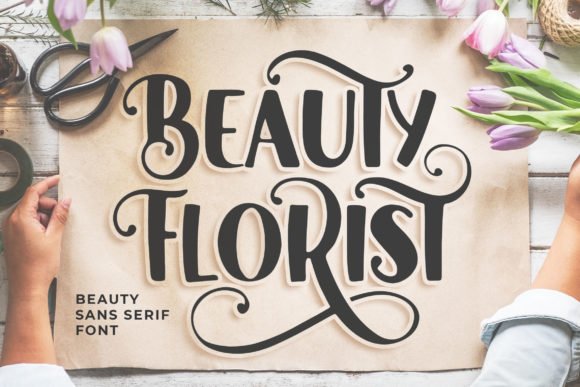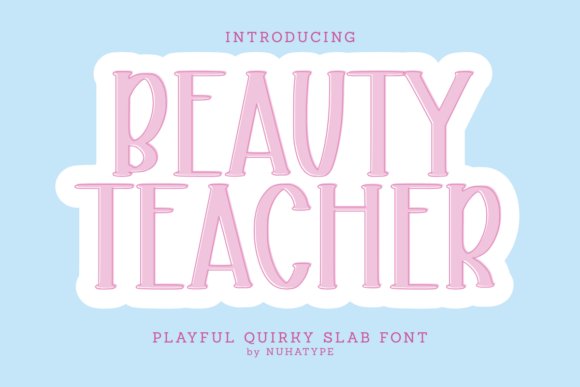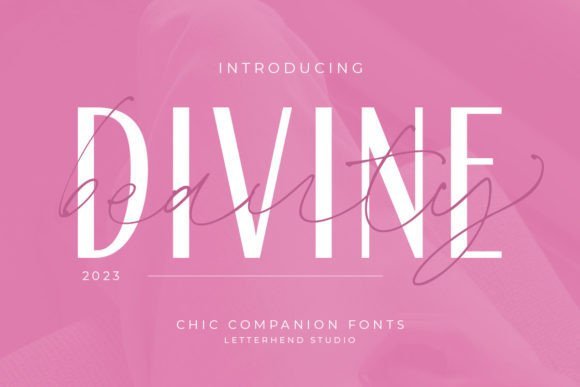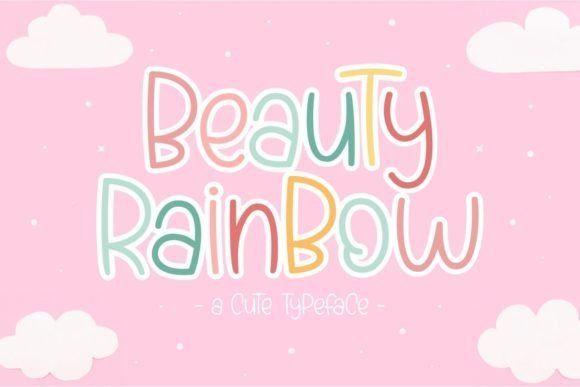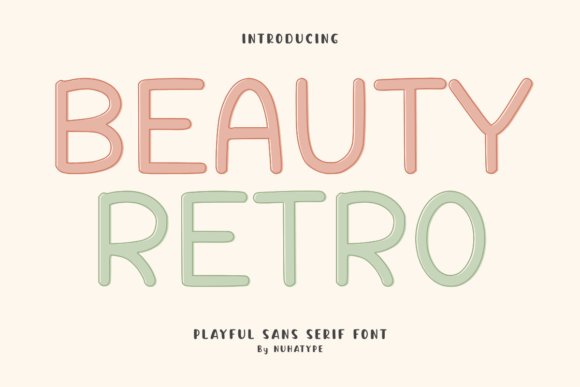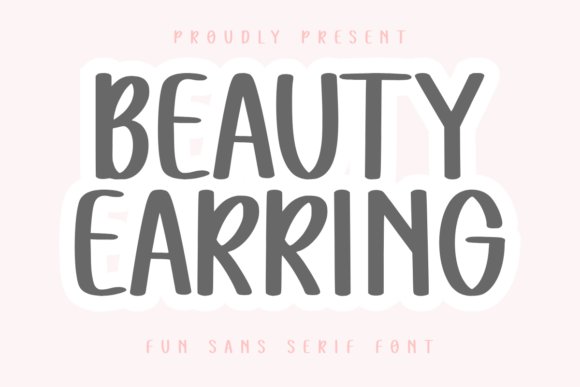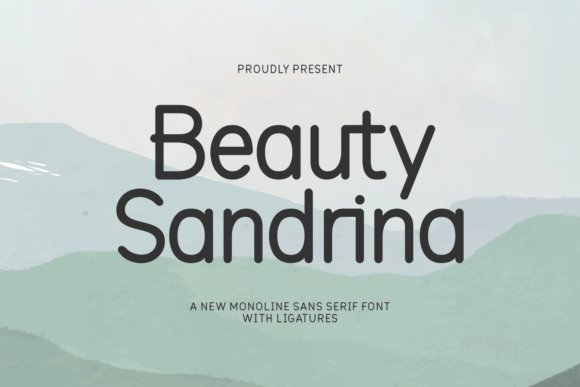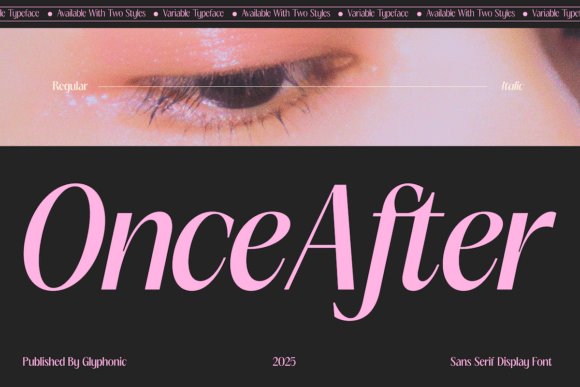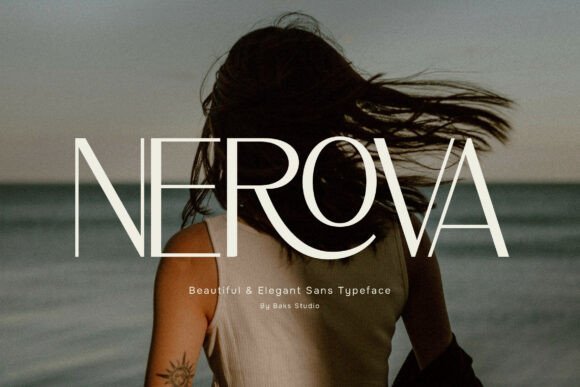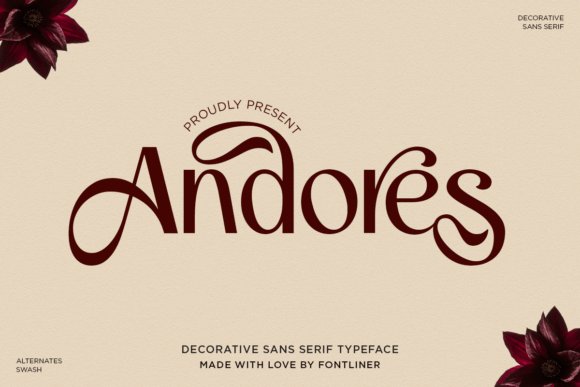
27 Best Beauty Brand Sans Serif Fonts for Stunning Visual Identities in 2026
Choosing the right typography is a critical step in building a luxury aesthetic for your cosmetics company. In this guide, we explore the 27 best beauty brand sans serif fonts that are trending for 2026 to help your designs stand out in a competitive market.
These clean and modern typefaces provide the perfect balance between high-end elegance and clinical precision. Whether you are designing a skincare label or a fashion magazine cover, the right font communicates trust and sophistication. Using modern sans-serifs allows your brand to remain versatile across digital and print media.
This selection focuses on readability and stylish curves that define modern cosmetic branding. By choosing the right weight and spacing, you can evoke a sense of minimalism and luxury that appeals to modern consumers.
1. Beauty Florist Font
Beauty Florist Font introduces a refreshing blend of joy and sophistication to the typography world. Its strokes are crafted with a delicate balance that manages to look both professional and approachable, making it a standout choice for contemporary identity projects.
When searching for the perfect beauty brand sans serif fonts, this typeface offers a unique geometric clarity that works wonders for skincare or floral boutiques. It thrives in environments where visual breathing room is essential, providing a clean yet expressive aesthetic that resonates with modern consumers.
The versatility of this font is its greatest strength, as it maintains its character across various digital and print mediums. Whether used for high-resolution web banners or physical packaging, the font ensures that the brand’s message is delivered with elegance and rhythmic flow.
My Recommendation: I personally love Beauty Florist for its cheerful disposition that doesn’t sacrifice professional polish. It is the ideal choice for small business owners who want their packaging to feel high-end yet welcoming. I would specifically recommend this for lifestyle brands or organic beauty products where a natural vibe is central to the identity.
2. Beauty Teacher Font
Beauty Teacher Font is a charming, handwritten sans serif that captures a soft and natural essence. Designed with a friendly touch, it brings an unmistakable handcrafted warmth to every design, steering away from the rigid structures of traditional digital typefaces.
This font is particularly well-suited for craft-focused ventures, making it a staple for creators using tools like Cricut or Silhouette. The smooth curves and simple strokes ensure that intricate cutting tasks are handled with ease, which is a significant plus for DIY enthusiasts.
Beyond crafting, its playful graphic nature makes it perfect for educational materials, kids’ worksheets, and bullet journals. It manages to be legible while retaining a quirky, human personality that makes instructional or organizational content feel much more engaging.
My Recommendation: Beauty Teacher is my go-to when a project needs to feel relatable and human. It works beautifully for printable planners or classroom resources because it’s clear enough for children to read but stylish enough for adults to enjoy. If you’re building a community-driven brand, this font provides the warmth you need.
3. Divine Beauty Font
Divine Beauty Font is a masterclass in modern simplicity, featuring clean lines and exceptionally balanced proportions. This typeface is designed for those who appreciate the intersection of minimalism and high fashion, offering a look that is both timeless and trendy.
The font excels in layout designs where it can be paired with sophisticated serifs, creating a visual harmony that feels curated and upscale. Its understated elegance ensures that it doesn’t overpower other design elements, allowing the overall composition to breathe and shine.
Ideal for luxury branding, this sans serif provides a sleek foundation for logos, headlines, and premium stationery. The deliberate lack of unnecessary flourishes emphasizes a less is more philosophy, which is highly sought after in contemporary skincare and apparel industries.
My Recommendation: Divine Beauty is the definition of quiet luxury in the font world. I recommend using it for editorial layouts or high-end product catalogs where you want the typography to feel effortless. It is a fantastic choice for designers looking to create a divine first impression without trying too hard.
4. Beauty Rainbow Font
Beauty Rainbow offers a delightful departure from stiff typography, introducing a sense of whimsy and joy into every character. This typeface is specifically crafted for designers who want to inject a playful energy into their layouts without losing the clean structure of a sans serif. Its cheerful curves and lighthearted weight make it a standout choice for modern aesthetics.
When searching for beauty brand sans serif fonts that break the mold, this option provides a unique balance of professional legibility and youthful exuberance. The font’s geometric foundations ensure it remains readable on digital screens and physical labels alike. It excels in environments where the brand voice needs to feel approachable, friendly, and inherently positive.
The versatility of these characters allows for creative experimentation across various media types. Whether you are building a social media campaign or designing custom packaging, the smooth outlines ensure high-quality production results. It is an excellent tool for creators looking to foster an emotional connection with their audience through vibrant and uplifting visual communication.
Download Beauty Rainbow Font
My Recommendation: I absolutely love this font for indie makeup lines or colorful skincare packaging targeted at Gen Z. Its bubbly personality makes products feel instantly more accessible and fun. Use it for headline text on your website or for cheeky slogans on your shipping boxes to create a memorable unboxing experience.
5. Beauty Retro Font
Beauty Retro Font
Beauty Retro captures the essence of handcrafted charm with its soft, organic strokes and friendly personality. This handwriting-inspired typeface brings a human touch to digital designs, making every word feel personal and carefully considered. Its natural flow is perfect for brands that value authenticity and a handcrafted aesthetic in their visual identity.
The technical execution of this font is tailored for ease of use, particularly for those utilizing cutting machines like Cricut or Silhouette. The smooth paths and lack of jagged edges ensure clean cuts for stickers, decals, and custom vinyl work. This makes it a go-to resource for boutique owners and DIY enthusiasts who need high-performance typography for their goods.
Beyond physical crafts, it performs exceptionally well in digital planners, educational worksheets, and lifestyle blogs. The legible yet informal structure allows it to function as both a secondary header and a stylized body text. It radiates a warm, vintage-inspired comfort that resonates deeply with audiences looking for a more grounded and relatable brand presence.
Download Beauty Retro Font
My Recommendation: This is my top pick for organic, small-batch beauty businesses or artisanal soap makers. The handwritten feel adds a level of trust and intimacy that standard fonts just cannot match. It is perfect for thank you cards or ingredient lists where you want the customer to feel the human hands behind the brand.
6. Beauty Earring Font
Beauty Earring Font
Beauty Earring is a sophisticated display typeface that masterfully blends modern minimalism with a rounded, approachable character. The slightly condensed letterforms offer a space-efficient solution for tight layouts without sacrificing visual impact or style. Its clean architecture and bold presence make it an ideal choice for high-contrast designs that require immediate attention from consumers.
The aesthetic of this font is defined by smooth, flowing curves that lend an air of contemporary elegance to any project. It avoids the harshness of traditional geometric fonts, opting instead for a softer, more inviting profile. This unique balance makes it highly effective for fashion-forward labeling, trendy apparel designs, and upscale product packaging where clarity is paramount.
Designed with versatility in mind, this typeface works beautifully across different substrates and printing methods. From sublimation on tumblers to embossed logos on luxury boxes, the letterforms maintain their integrity and distinct charm. It provides a polished, professional look that elevates the overall quality of creative marketing materials and high-end brand collateral.
Download Beauty Earring Font
My Recommendation: For minimalist jewelry brands or high-end salon signage, this font is a total winner. It has a sleek, boutique feel that communicates luxury while remaining very legible and friendly. I would use this for main brand headings or logo marks where you want to show off a polished, modern, and curated vibe.
7. Beauty Sandrina Font
Beauty Sandrina Font
Beauty Sandrina is a masterful monoline typeface that perfectly balances contemporary minimalism with a chic, feminine aesthetic. Its clean lines and uniform stroke weight make it a standout choice for anyone seeking high-quality beauty brand sans serif fonts. This typeface offers a refreshing alternative to standard geometric fonts by introducing a softer, more fluid personality that feels approachable yet professional.
The monoline architecture ensures that the font maintains its integrity across various platforms, from high-resolution print ads to mobile application interfaces. Its airy spacing and delicate curves create a visual rhythm that is both soothing and sophisticated. This makes it an ideal tool for designers who want to convey purity, clarity, and modern luxury without the harshness of industrial sans-serifs.
With its emphasis on readability and sleek structure, the font easily handles long-form marketing copy while remaining distinct enough for headline use. By incorporating these beauty brand sans serif fonts into your visual identity, you ensure a cohesive and polished look that resonates with a style-conscious audience. It is a versatile asset that simplifies the design process for cosmetic and lifestyle projects.
Download Beauty Sandrina Font
My Recommendation: I highly recommend Beauty Sandrina for minimalist skincare packaging or social media layouts where clarity is the priority. The consistent weight looks incredible when overlaid on soft, pastel-toned photography. It is the perfect choice for a brand that wants to appear transparent, modern, and effortlessly elegant to its customers.
8. Once After Font
Once After Font
Once After represents a bold evolution in typography, offering a variable sans-serif experience that blends editorial grace with digital precision. Characterized by high-contrast curves and large, expressive apertures, this typeface challenges the traditional boundaries of minimalist design. It captures the sophisticated spirit of a high-end serif while maintaining the clean, efficient silhouette of a modern sans-serif.
The dramatic flair of its sweeping bowl structures provides a glamorous presence that is rarely found in standard typefaces. Because it is a variable font, designers have the freedom to fine-tune the weight transitions, allowing for a customized performance that adapts perfectly to different media environments. This adaptability makes it an essential tool for creating unique, high-fashion digital interfaces that require a bespoke touch.
Furthermore, the PUA-encoded nature of Once After grants easy access to a wealth of glyphs and swashes. This feature empowers creators to add unique flourishes to their titles and logos, ensuring that every project has a signature look. It is a typeface designed for those who want their visual voice to be both exclusive and highly editorial in its execution.
Download Once After Font
My Recommendation: Once After is a dream come true for fragrance brands and fashion magazines that need a ‘high-couture’ vibe. I love using its variable weight feature to create dynamic, moving headlines on web projects. Use this if you want your brand to feel like a premium, limited-edition experience that values artistic expression.
9. Nerova Font
Nerova Font
Nerova is a meticulously crafted typeface that serves as a bridge between modern minimalism and high-end exclusivity. Every letterform is built with balanced proportions and smooth, refined curves that evoke a sense of quiet luxury. It is specifically designed for professionals who prioritize clarity and sophisticated aesthetics in their branding and editorial work.
The strength of this font lies in its distinctive personality, which manages to be both striking and unobtrusive. The refined spacing between characters allows for maximum legibility, even when used for complex product descriptions or small-print packaging. Its construction reflects a deep understanding of geometric harmony, making it a reliable choice for a wide variety of professional design applications.
Whether applied to marketing materials or luxury product identities, Nerova delivers a polished finish that instantly elevates the perceived value of a brand. It offers a clean visual identity that avoids the clutter of over-designed typefaces, focusing instead on the purity of form. This makes it an indispensable asset for designers working within the fashion and high-end lifestyle industries.
Download Nerova Font
My Recommendation: In my professional experience, Nerova is the ultimate choice for luxury skincare serums or professional consulting logos. Its proportions feel very ‘established’ and trustworthy, which is great for building brand authority. I suggest using it with generous letter-spacing to truly let the elegant curves breathe and speak for themselves.
10. Andores Sans Serif Font
Andores Sans Serif Font
Andores brings a unique blend of decorative flair and structural stability to the digital canvas. Its flowing swashes and graceful curves offer a level of ornamental sophistication that few typefaces manage without feeling cluttered. This makes it an ideal choice for beauty brand sans serif fonts where a touch of romance and visual luxury is required to capture consumer attention.
The typeface’s refined proportions are meticulously crafted to convey warmth and high-end appeal through every character. Its smooth rhythm allows for excellent readability even with its stylized alternates. Designers can easily leverage its PUA encoding to access flourishes that elevate simple headlines into bespoke branding elements for skincare or fashion labels.
Beyond its aesthetic charm, Andores is highly functional for multi-platform use. From Instagram story overlays to physical product packaging, its modern simplicity ensures it doesn’t lose impact. The balance between its delicate line work and bold presence provides a versatile toolkit for creating unforgettable visual storytelling in the boutique retail sector.
Download Andores Sans Serif Font
My Recommendation: I would personally choose Andores for a high-end perfume or botanical skincare line. The way the swashes interact gives a custom, hand-crafted feel that usually requires hours of manual work. It is the perfect shortcut to achieving a romantic, premium vibe for brands that rely heavily on visual storytelling.
11. Ladyrose Sans Serif Font
Ladyrose Sans Serif Font
Ladyrose stands out as a masterclass in contemporary minimalism, focusing on the power of understated elegance. This font prioritizes clean lines and subtle geometric curves to deliver a visual presence that feels both approachable and exclusive. It avoids unnecessary complexity, allowing the negative space around the letterforms to breathe, which is essential for high-end editorial and digital interfaces.
The balanced proportions of this typeface ensure a polished look across a wide variety of weights and sizes. Its elegant simplicity makes it a favorite for designers who need a dependable yet stylish typographic anchor. Whether you are crafting a logo for a luxury spa or a digital magazine layout, its soft aesthetic provides a consistent sense of class.
Adapting seamlessly to different creative directions, Ladyrose maintains its poise in both print and web environments. The typeface creates a sophisticated atmosphere without ever overshadowing the surrounding imagery. This makes it a perfect choice for modern brands that want to communicate clarity and luxury through a refined, understated typographic voice.
Download Ladyrose Sans Serif Font
My Recommendation: I highly recommend Ladyrose for anyone building a minimalist lifestyle blog or a luxury fashion portfolio. Its airy feel makes long-form text look incredibly chic and professional. It is my go-to when I need a font that feels ‘expensive’ without being loud or distracting to the reader.
12. Coroy Sans Serif Font
Coroy Sans Serif Font
Coroy is a sans serif typeface that draws heavy inspiration from the world of high-impact minimalist logos. Its structure is built on a foundation of clarity and modern efficiency, making it a powerful tool for visual communication. The font is designed to be punchy and direct, ensuring that brand messages are delivered with authority and professional polish.
This font package includes a full suite of standard glyphs and ligatures that enhance its versatility across different media. It works exceptionally well in professional software suites like Adobe Illustrator and Photoshop, allowing for seamless integration into complex design workflows. The international accent support ensures that global brands can maintain a consistent identity across different markets.
The simplicity of Coroy is its greatest strength, offering a clean canvas for advertising campaigns and invitation designs. It excels in environments where readability is paramount but a distinct personality is still desired. By combining a classic sans serif backbone with subtle modern tweaks, it manages to look fresh and timeless regardless of the application.
Download Coroy Sans Serif Font
My Recommendation: I’d suggest Coroy for corporate identity projects or tech-focused retail brands. The minimalist influence is very clear, giving any logo an instant boost of credibility and modern appeal. It is a true workhorse font that stays legible even on tiny product labels or mobile screens.
13. Laora Sans Serif Font
Laora Sans Serif Font
Laora Sans is a masterclass in minimalist design, drawing inspiration from high-end corporate identities that prioritize clarity and sophistication. Its clean lines and balanced proportions make it an exceptional choice for designers who need a versatile typeface that feels both modern and timeless. This font family adapts beautifully to various digital and physical contexts.
This font comes equipped with standard glyphs and unique ligatures that allow for creative flexibility in professional layouts. It functions seamlessly across various design suites like Adobe Illustrator and Photoshop, ensuring a smooth workflow for complex branding projects or simple invitation designs alike. The simple installation process makes it accessible for creators at any skill level.
When searching for the perfect beauty brand sans serif fonts, Laora stands out because of its ability to adapt to diverse aesthetic needs without losing its elegant edge. It is particularly effective for large-scale advertising and digital brochure layouts where readability is just as important as visual appeal. This typeface effectively communicates luxury and professional reliability.
Download Laora Sans Serif Font
My Recommendation: I would personally reach for Laora when designing minimalist skincare packaging or luxury salon menus. Its clean aesthetic gives off an expensive vibe while remaining perfectly legible. It is the definitive choice for any project that needs to look polished and high-end without being overly decorative.
14. Beauty Heart Beauty Brand Sans Serif Fonts
Beauty Heart Beauty Brand Sans Serif Fonts
Beauty Heart offers a refreshing departure from standard geometric typefaces by introducing a soft, handcrafted aesthetic. This font captures a friendly and natural essence, making it perfect for brands that want to appear approachable and authentic to their audience. Its gentle curves suggest a sense of artisanal care and attention to detail.
The smooth strokes are optimized for precision cutting machines like Cricut and Silhouette, making it a favorite for DIY creators and small business owners. It brings a playful energy to planners, stickers, and classroom materials, adding a personal touch that machine-perfect fonts often lack. This ease of use makes it a staple for home-based craft projects.
Beyond crafting, this typeface excels in social media graphics and greeting cards where a human connection is vital. Its warm personality helps bridge the gap between a business and its customers, fostering a sense of community. The design remains legible even at smaller sizes, making it versatile for various print and digital formats.
Download Beauty Heart Beauty Brand Sans Serif Fonts
My Recommendation: This is my favorite choice for lifestyle bloggers or small-batch organic soap makers who want a hand-picked, authentic feel. It is incredibly charming and works wonders for Instagram stories or personalized thank-you notes. If your project needs a touch of kindness and warmth, this is the font for you.
15. Beauty Garden Sans Serif Font
Beauty Garden Sans Serif Font
Beauty Garden is a sophisticated modern typeface characterized by its precise geometry and flowing curves. Every character has been crafted with meticulous attention to detail, ensuring that the alternative characters and ligatures integrate perfectly into high-end compositions. This font brings a unique sense of motion to static typography.
This font is specifically designed to elevate branding projects, providing a unique visual identity that feels both contemporary and organic. The beautiful curves of the letterforms offer a sense of fluidity that is often missing from more rigid sans serif alternatives. It creates a rhythm on the page that naturally guides the eye of the reader.
Whether used for premium packaging or eye-catching titles, this typeface adds a layer of refinement to any design. Its versatility allows it to move effortlessly between digital interfaces and physical print media, maintaining its striking presence. It is an excellent asset for designers looking to create a memorable brand presence with minimal effort.
Download Beauty Garden Sans Serif Font
My Recommendation: I recommend Beauty Garden for botanical-based beauty lines or luxury candle brands that need a mix of modernism and nature. The ligatures are particularly stunning, making it easy to create a custom-looking logo without much modification. It is a great pick for designers who want to balance sharpness with soft, organic flows.
16. Hungry Beauty Font
Hungry Beauty Font
Hungry Beauty is a remarkably fluid and attractive sans-serif that balances modern minimalism with a warm, inviting personality. It serves as a fantastic choice when browsing for beauty brand sans serif fonts because of its clean geometry and effortless legibility. Whether you are crafting a high-impact headline for a skincare line or building a cohesive identity for a digital wellness app, this typeface ensures your message remains the focal point without unnecessary clutter.
The font’s architecture is built on simplicity, making it versatile enough to transition from dense body copy to bold advertising banners. Its stylish proportions give it an eye-catching edge that resonates with contemporary audiences who value clarity and sophistication. In an industry where first impressions are everything, the balanced weights and refined curves provide a professional finish that elevates any marketing material.
Download Hungry Beauty Font
My Recommendation: I love Hungry Beauty for its sheer adaptability; it is one of those rare fonts that works just as well in a tiny footnote as it does on a massive billboard. I would recommend this for a startup looking for a reliable, all-in-one typeface that can grow with their visual identity. It feels approachable but polished, making it a safe yet stylish bet for almost any modern creative project.
17. Rise of Beauty Duo Font
Rise of Beauty Duo Font
The Rise of Beauty Duo is a masterclass in typographic synergy, pairing a sleek, contemporary sans serif with an expressive, hand-lettered script. This combination allows designers to create complex visual hierarchies that feel unified and intentional. It is particularly effective for lifestyle projects where a touch of human warmth is needed alongside the structured reliability of a modern typeface, providing a seamless transition between corporate professionalism and artistic flair.
This duo is specifically tailored for diversity in application, from high-end logos to intricate product packaging. The script component adds a flourish of personality that complements the sans serif’s understated elegance, making it ideal for social media storytelling and editorial layouts. By utilizing these two distinct yet harmonious styles, you can craft a narrative that feels both established and refreshingly current in today’s fast-paced design environment.
Download Rise of Beauty Duo Font
My Recommendation: The way the script and sans interact in this duo is genuinely beautiful and saves so much time searching for a perfect match. I would use this primarily for boutique branding or wedding invitations where you need that handmade touch without losing professional structure. It is a fantastic toolkit for social media managers who want to add a sophisticated, curated look to their daily posts.
18. Caelune Beauty Font
Caelune Beauty Font
Caelune Beauty is a high-contrast sans serif that draws inspiration from the rigid yet graceful world of haute couture. The typeface features dramatic shifts between thick and thin strokes, creating a sense of motion and light that is often reserved for luxury fashion houses. It is designed to be seen at large scales, where its delicate details and sharp terminals can truly shine, offering a premium aesthetic that commands attention on any display surface.
This font is an essential asset for editors and designers focusing on high-end lifestyle content and upscale branding. Its refined letterforms provide a bridge between classic grace and modern structural integrity, ensuring that every headline looks like a piece of art. When used for editorial spreads or luxury cosmetics, it brings an unmistakable air of exclusivity and timelessness that standard fonts simply cannot replicate.
Download Caelune Beauty Font
My Recommendation: Caelune Beauty is my go-to for anything that needs to scream expensive and luxurious. The high contrast is incredibly striking, especially for perfume bottles or fashion magazine covers where the typography needs to be as bold as the photography. I highly recommend it for display work where you want to evoke a sense of heritage combined with contemporary edge.
19. Classic Beauty Font
Classic Beauty Font
Classic Beauty stands out as a heavyweight contender in the world of typography, offering a thick, rounded appearance that feels both nostalgic and contemporary. This typeface is designed to project a sense of reliability and approachability, making it an excellent choice for modern labels. Its bold strokes are complemented by soft terminal curves that prevent the design from feeling too rigid.
When selecting beauty brand sans serif fonts, designers often look for a balance between authority and warmth. Classic Beauty achieves this by softening its bold proportions with gentle curves, ensuring that your headlines remain legible without appearing overly clinical or cold. It fills the space with a friendly presence that invites customers to explore the product further.
The vintage-inspired geometry of this font allows it to bridge the gap between mid-century modern aesthetics and current minimalist trends. It is particularly effective when used in high-contrast color palettes, where its substantial weight can truly dominate the visual space. Whether it is for a high-end cream or a trendy lipstick line, this font delivers a polished finish.
Download Classic Beauty Font
My Recommendation: I personally love using this for organic skincare packaging because it feels grounded and authentic. It offers a friendly, trustworthy vibe that works incredibly well for brands that want to seem established yet accessible to everyone. I would suggest using it for bold hero headers or logo marks that need to pop against busy photographic backgrounds.
20. Megan Beauty Font
Megan Beauty Font
Megan Beauty is a masterclass in modern display design, blending sleek lines with a distinct vintage personality. It manages to feel high-fashion while maintaining a playful edge, making it a versatile tool for any designer looking to elevate their brand’s visual identity. The typeface features unique character shapes that suggest a bespoke, hand-crafted quality often missing in standard fonts.
This typeface excels in environments where elegance is paramount and every detail matters. Its carefully crafted character shapes provide a sophisticated rhythm to blocks of text, ensuring that even simple layouts feel curated and expensive. It is the kind of font that does the heavy lifting for your design, requiring very little additional decoration to look professional.
Beyond its aesthetic appeal, this font offers a unique take on the retro-revival trend seen in current luxury markets. Unlike generic sans serifs, it possesses a rhythmic flow that mimics the grace of high-end editorial layouts, making it ideal for digital magazines or fashion lookbooks. Its versatility allows it to transition smoothly from digital screens to high-quality print materials.
Download Megan Beauty Font
My Recommendation: This is my go-to choice for boutique beauty brands that want to feel expensive without being stuffy or traditional. The subtle vintage nuances give it a personality that plain geometric fonts lack, making it perfect for luxury perfumes or premium hair care lines. It works best when you give it plenty of letter-spacing to let the unique characters breathe.
21. Space Power Font
Space Power Font
Space Power pushes the boundaries of traditional typography by introducing a futuristic and exclusive aesthetic to the sans serif category. Its uppercase letters are defined by sharp angles and innovative geometry, creating a visual language that speaks of progress and technological advancement. This makes it a standout choice for brands looking to define the next generation of style.
This font is particularly suited for industries where science and aesthetics collide in the pursuit of beauty. In the world of modern cosmetics, where clean-tech is a growing niche, these sharp characters provide a sense of precision and efficacy. It communicates a message of results-driven performance that resonates with tech-savvy consumers looking for the latest innovations.
Whether used for large-scale signage or digital advertisements, this typeface maintains its impact across all mediums. Its unique construction ensures that it remains memorable, helping a brand cut through the noise of more traditional competitors in the marketplace. It is a bold statement piece that requires confidence to use effectively in a branding suite.
Download Space Power Font
My Recommendation: I find Space Power exceptionally useful for science-first beauty brands or high-tech skincare gadgets that want to look cutting-edge. It has a high-energy, almost cinematic quality that instantly makes a project feel modern and forward-thinking. I recommend using it sparingly for headlines and short call-to-actions to maximize its futuristic impact without overwhelming your readers.
22. Vorue Font
beauty brand sans serif fonts
Vorue emerges as a masterclass in quiet confidence, blending structural integrity with a soft, inviting edge. Its silhouette draws inspiration from classic retro styles while maintaining a strictly contemporary feel that resonates with the current luxury market. This typeface is more than just a set of letters; it is a visual statement of exclusivity.
When searching for beauty brand sans serif fonts, designers will find that Vorue provides the exact level of sophistication required for high-end skincare or boutique fashion lines. Its clean lines ensure that your brand identity remains legible across digital platforms and physical packaging alike. The subtle nuances in letter spacing and stroke weight give it a unique character.
The versatility of Vorue extends into editorial design, where it functions flawlessly as a headline font that demands attention without screaming. It pairs beautifully with minimalist imagery, allowing the negative space to breathe. Whether you are crafting a logotype or a multi-page brand guide, this font provides a cohesive and polished aesthetic.
Download Vorue Font
My Recommendation: I highly recommend Vorue for branding projects where you want to signal high-end luxury without being overly ornate. Its retro nuance gives it a soul that many modern sans serifs lack. It is particularly effective for high-priced apothecary or skincare brands that need to look established yet modern.
23. Barium Font
Barium Font
Barium captures a regal elegance that few sans serifs can claim, offering a feminine touch that feels inherently premium. Its design focuses on graceful curves and perfectly balanced proportions, ensuring that every character contributes to a sense of timeless sophistication. This font is a top choice for projects that need to communicate clarity and high-level craft.
The typeface excels in environments where beauty and cosmetics are the primary focus, such as luxury skincare packaging or high-fashion lookbooks. Barium’s clean aesthetic makes it incredibly adaptable, allowing it to shine in minimalist layouts as well as more ornate wedding invitations. It effectively bridges the gap between modern minimalism and classic royal aesthetics.
Implementing Barium into a brand’s visual toolkit adds an immediate layer of refinement. The font maintains its integrity at various sizes, making it just as effective on a massive billboard as it is on a small product label. It is designed for those who appreciate the finer details of typography and want their brand to reflect that same level of care.
Download Barium Font
My Recommendation: Barium is my top pick for wedding stationery or high-end cosmetic labels because of its graceful, almost royal silhouette. It feels expensive and clean, which is a hard balance to strike. Use it whenever you need your typography to feel as delicate as a silk scarf.
24. Rokey Font
Rokey Font
Rokey introduces a delightful harmony between geometric precision and organic friendliness through its rounded contours and unique letterforms. This typeface is specifically crafted to offer designers a wealth of creative options, featuring a robust set of ligatures and alternates. These OpenType features allow for a high degree of customization, making every word feel bespoke.
The font’s modernity is underscored by its approachable vibe, making it ideal for web interfaces and editorial projects that aim for a warm yet professional tone. It breaks away from the sterility often associated with sans serifs by incorporating soft edges that invite the reader in. This balance makes it highly effective for lifestyle brands looking for a fresh visual direction.
By utilizing the diverse glyph variations, designers can create dynamic headlines that serve as the focal point of a layout. Rokey is built for the modern creative professional who needs a tool that is both versatile and visually striking. It ensures a lasting impression across digital and print mediums, proving that sophisticated design doesn’t have to be cold.
Download Rokey Font
My Recommendation: If you want a logo that looks custom-made without the custom price tag, Rokey is the answer. The ligatures are absolutely stunning and add a level of personality that standard fonts lack. It’s the perfect choice for lifestyle blogs or tech-forward beauty apps.
25. Moreno Font
Moreno Font
Moreno is a commanding sans serif that draws inspiration from the high-impact world of minimalist logos. Its clean lines and robust character make it a top contender for modern brand identities that require a sense of authority and clarity. This font family is built to provide maximum impact without sacrificing readability.
In the context of selecting the right beauty brand sans serif fonts for high-impact visual identities, Moreno provides a unique blend of strength and modern sophistication. It works exceptionally well in advertising, video overlays, and large-scale layouts where legibility is paramount for the consumer experience.
This typeface balances professional grit with elegant crafting, making it suitable for everything from corporate brochures to high-end product invitations. The balanced letterforms ensure that your message remains the central focus of any creative project, allowing the brand’s voice to resonate clearly.
Download Moreno Font
My Recommendation: I love Moreno for its sheer presence on a page. It’s my go-to when a client wants a power look for their skincare or fitness line. Use it for hero headers where you want the brand name to be unmistakable and bold.
26. Instant Stories Font
Instant Stories Font
Instant Stories is a breath of fresh air in the typography world, blending the structure of a sans serif with the fluid grace of handwriting. This unique fusion creates a feminine allure that is both stylish and deeply personal, perfect for high-end editorial work that demands a soft touch.
The typeface exudes a subtle charm that captures the nostalgic nuances of vintage letters. Its breezy cursive style makes it an excellent choice for romantic projects, including wedding invitations, heartfelt stationary, and boutique product labels that require a sense of luxury and grace.
Despite its tall and thin appearance, the font maintains high legibility across various platforms. Whether you are designing a trendy magazine headline or a minimalist T-shirt, this font adds a layer of sophisticated romance that is hard to replicate with standard typefaces. It is a true trendsetter for modern designers.
Download Instant Stories Font
My Recommendation: Instant Stories feels like a handwritten note from a close friend, which is why I recommend it for influencer branding or lifestyle blogs. It adds an approachable yet luxury feel to any design. It is particularly effective for digital storytelling and social media assets.
27. Beauty Smile Font
Beauty Smile Font
Beauty Smile lives up to its name by offering a visual aesthetic that is both welcoming and visually distinctive. The font features soft, unique strokes that deviate from the clinical perfection of traditional geometrics, giving it a handcrafted personality that feels organic and approachable.
This typeface is engineered for versatility, making it a reliable asset for a wide range of creative works. From whimsical crafting projects to professional digital designs, its special character helps brands connect with their audience on a more emotional level than standard sans serifs allow.
Designed for seamless integration, Beauty Smile is fully compatible with Windows and various open-source platforms. Its natural flow enhances the overall appeal of any product, ensuring that your artistic vision is translated clearly across different media formats while maintaining a friendly, eye-catching appearance.
Download Beauty Smile Font
My Recommendation: This is a fantastic choice for labels and packaging that need to feel organic and friendly. I find it particularly useful for artisanal food brands or children’s products where you want a playful yet professional vibe. Its unique character helps it stand out in a crowded market.
In conclusion, selecting one of these 27 beauty brand sans serif fonts will ensure your projects reflect the premium quality of your products. These typefaces are designed to offer a clean and polished look that resonates with modern consumers who value minimalism and style.
Elevate your visual identity in 2026 by choosing a font that speaks to your brand’s unique personality and professional values. Remember that typography is more than just text; it is the voice of your brand. Start experimenting with these sleek styles today to transform your design aesthetic.